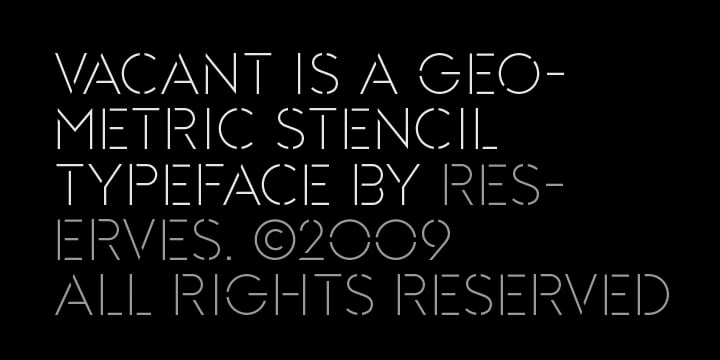
Vacant Font is an intriguing and distinctive typeface, often characterized by its minimalist, perhaps incomplete or deconstructed letterforms, which create a modern and artistic appeal. It's an exceptional choice for projects aiming for a contemporary, edgy, or conceptual aesthetic. Imagine it featured in avant-garde art installations, the sleek branding of an architectural firm, experimental website designs, or impactful headlines in a cutting-edge fashion editorial. Its unique visual style makes it particularly effective for album covers, exhibition titles, or any creative endeavor that seeks to challenge convention and leave a memorable impression.
What makes Vacant Font truly exciting is its ability to communicate subtly while making a bold statement. Its design, often playing with negative space or unconventional letter construction, can evoke a sense of emptiness, absence, or a clean slate, depending on its specific application. This deliberate design choice provides a contemporary edge, ensuring that your message stands out through its unique visual texture and thoughtful execution. It's a font that doesn't just display text; it becomes an integral part of the artistic expression, pushing the boundaries of traditional typography.
The Vacant Font family typically leans towards a focused set of styles that maximize its unique visual impact. While primarily available as Vacant Font Regular, designers might offer a Vacant Font Bold or a Vacant Font Light to provide variations in weight that complement its distinctive look. Due to its often unconventional nature, it may also include a limited character set or special ligatures and alternates designed to enhance its artistic appeal. Explore the unique artistic potential of Vacant Font Free Download for your next groundbreaking project.